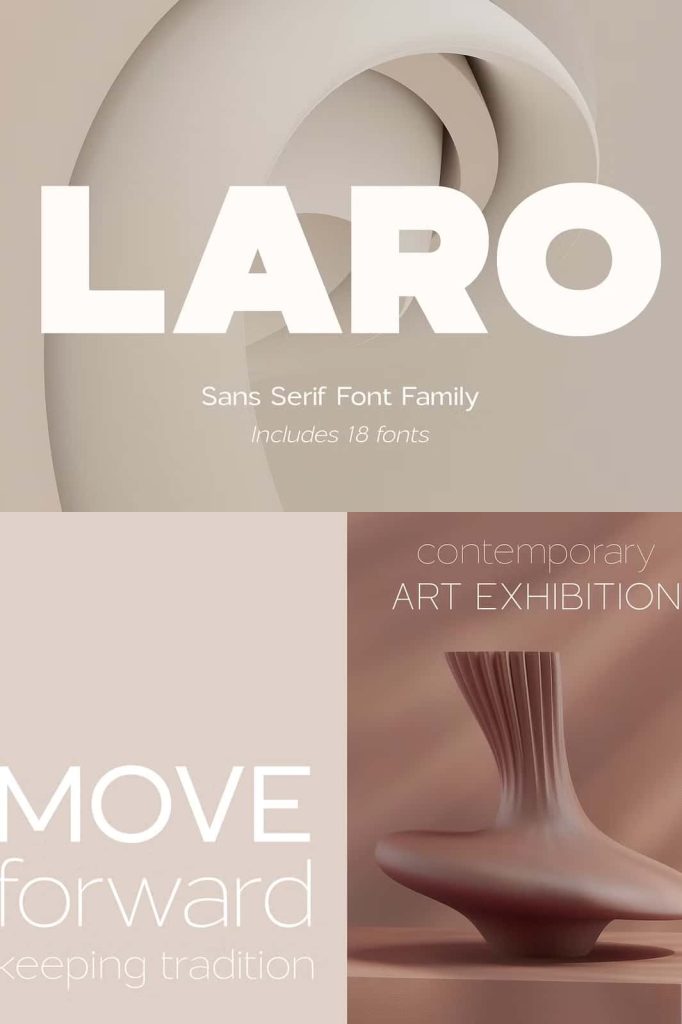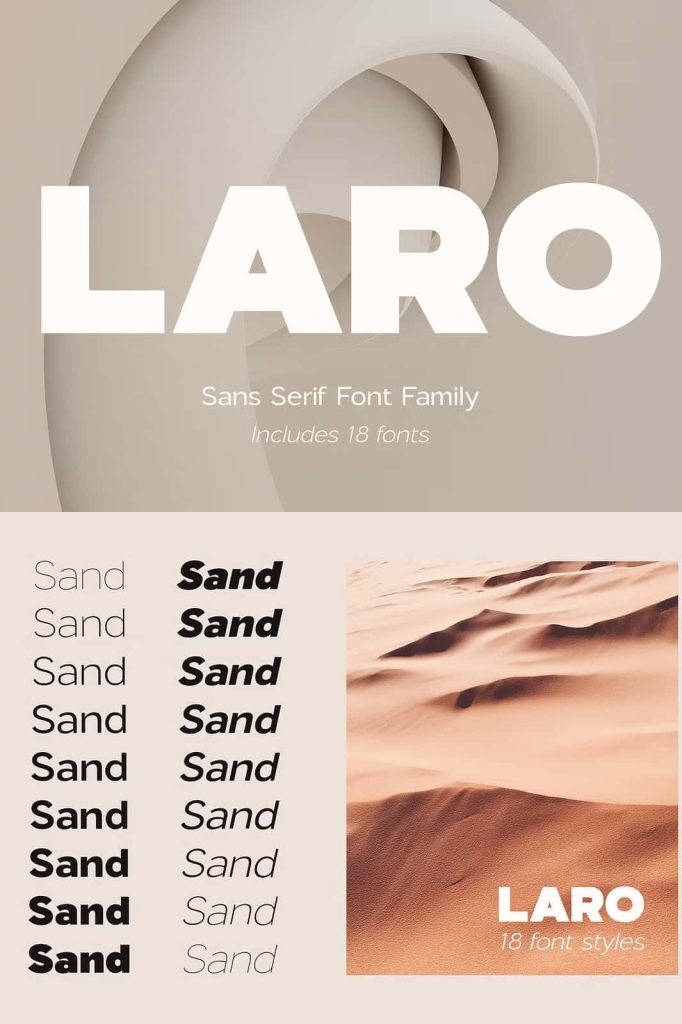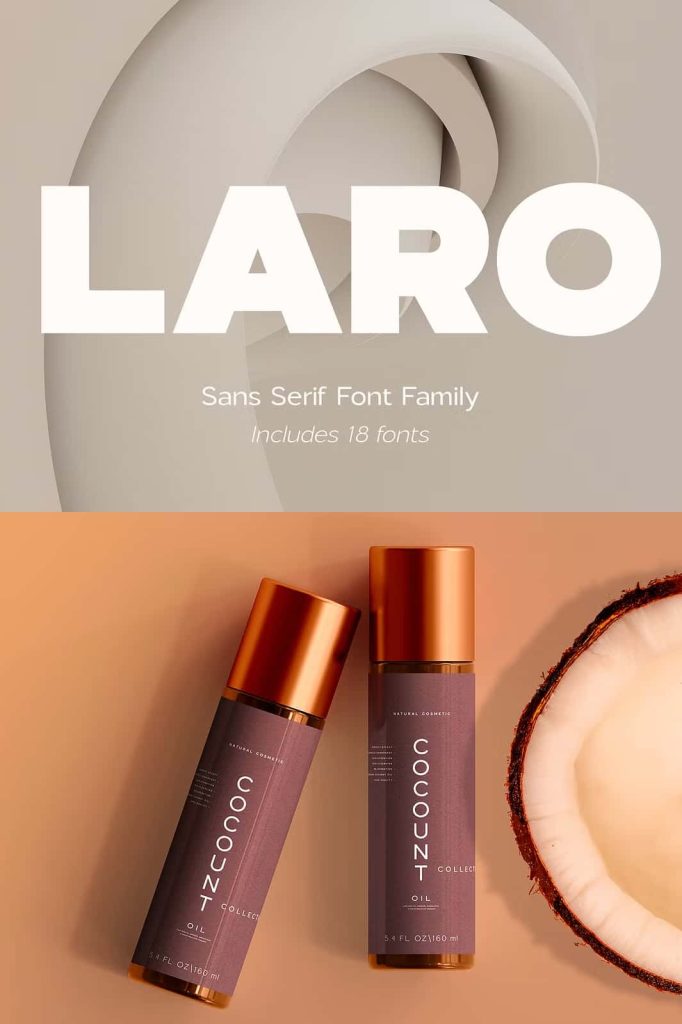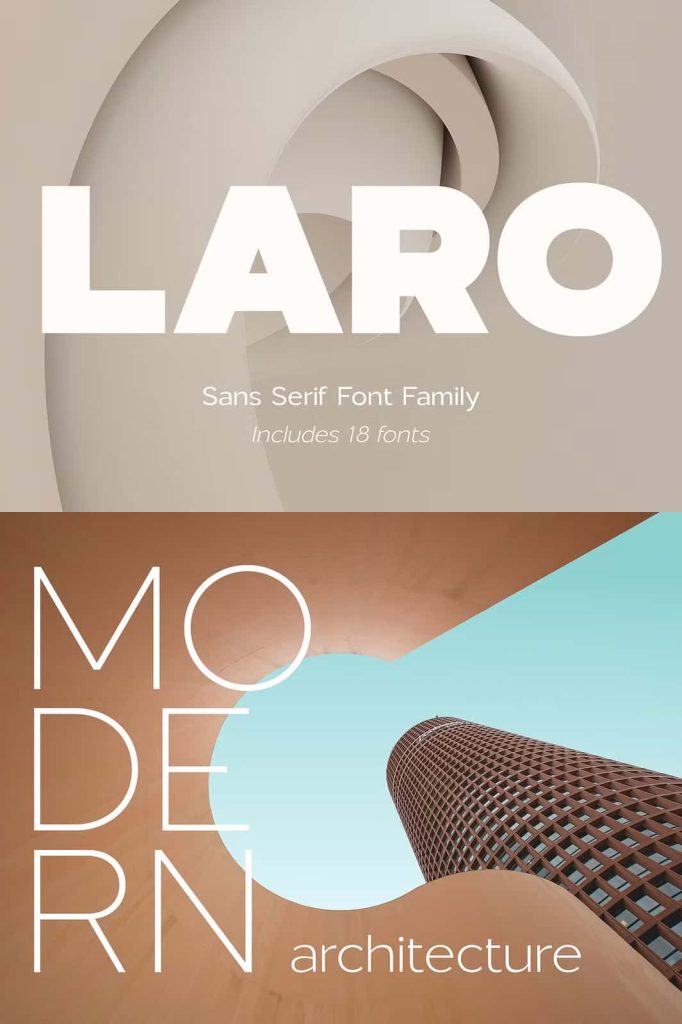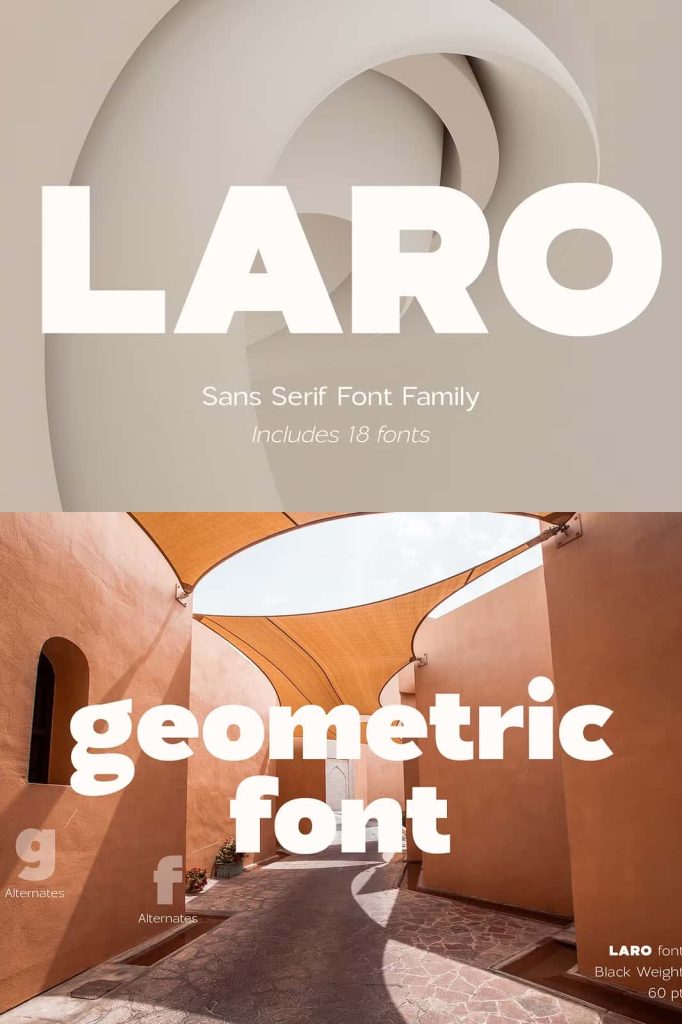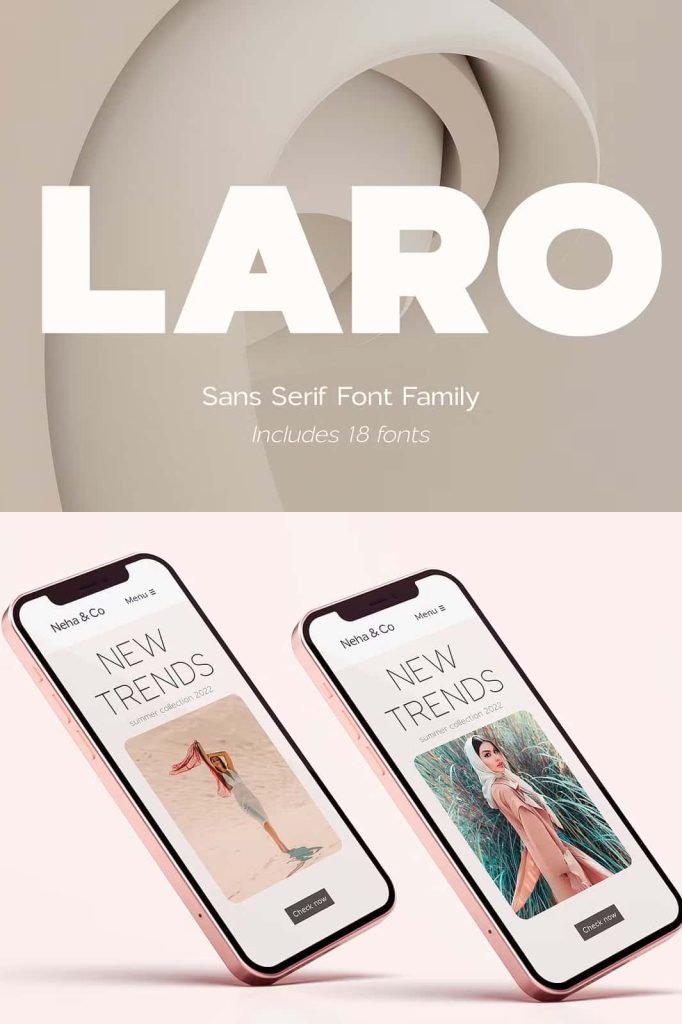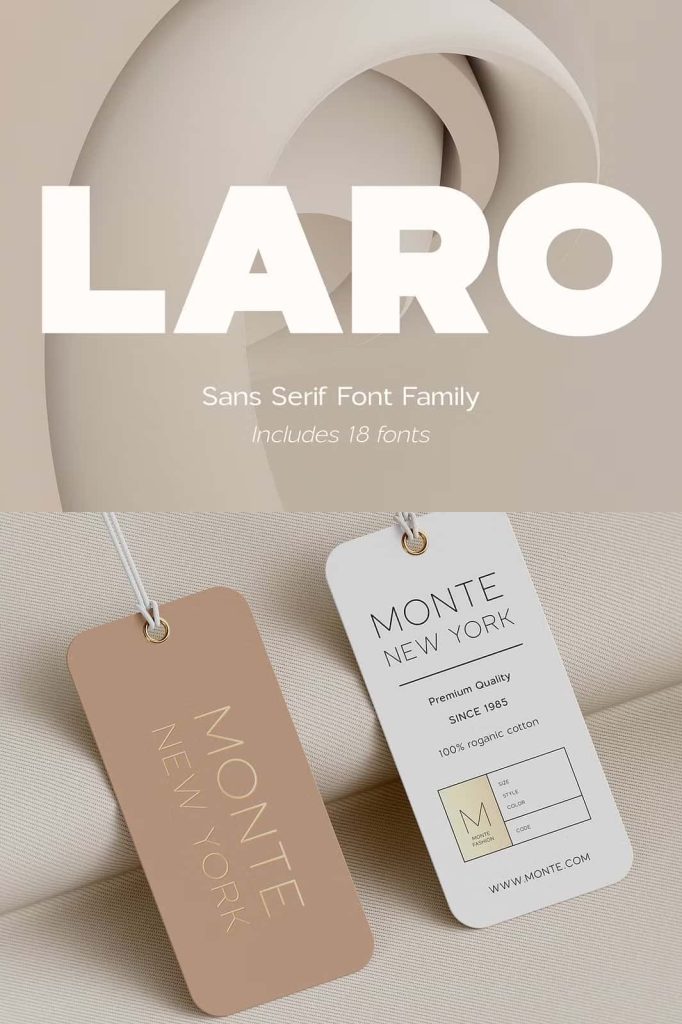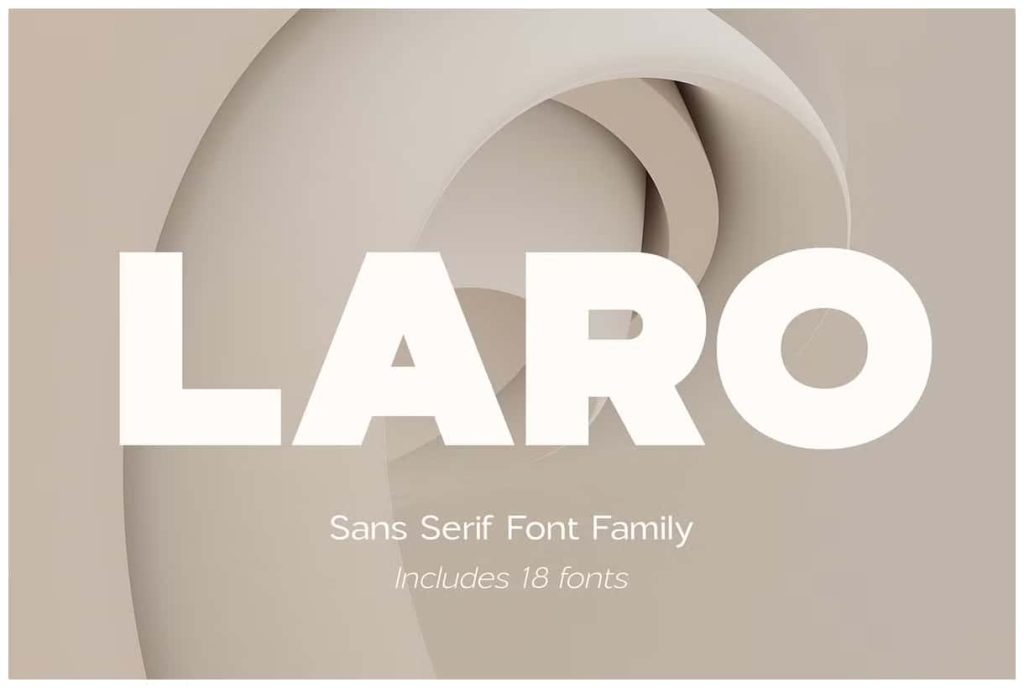
Laro Font FamilyleastedMay 15, 2025Fonts Laro this is a modern sans-serif font that includes nine weights from thin to black and nine weights in Italic style. Download